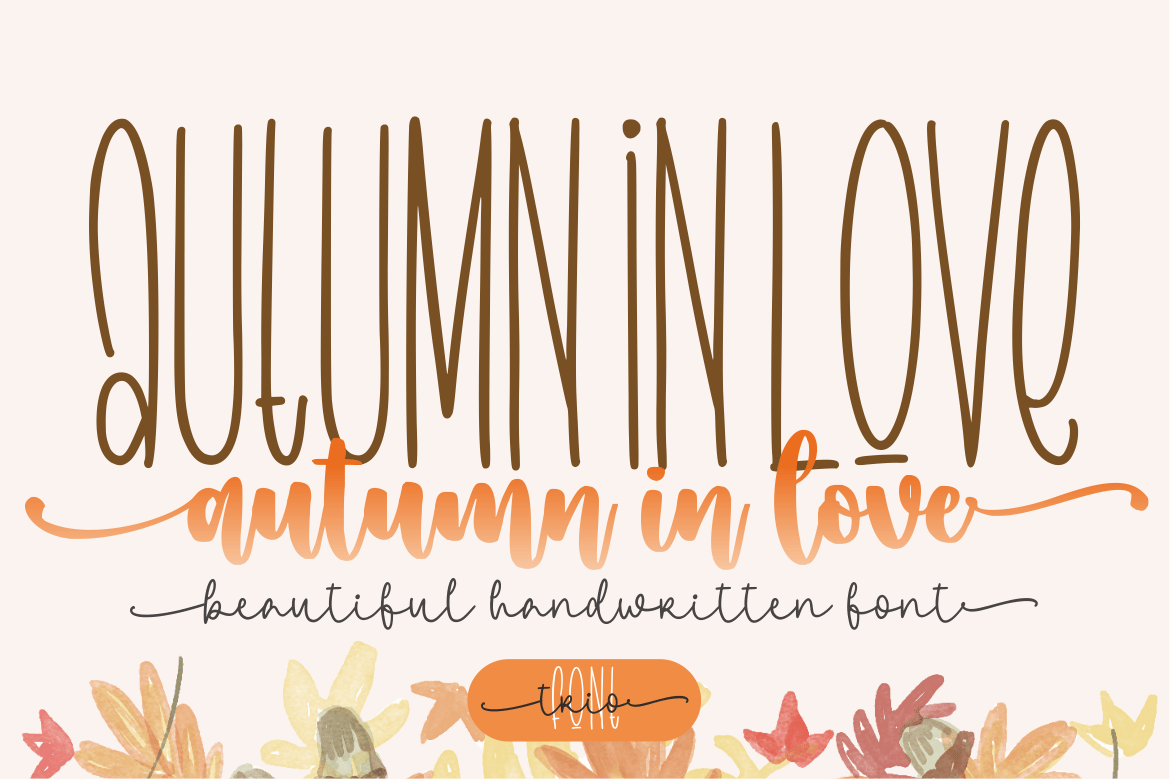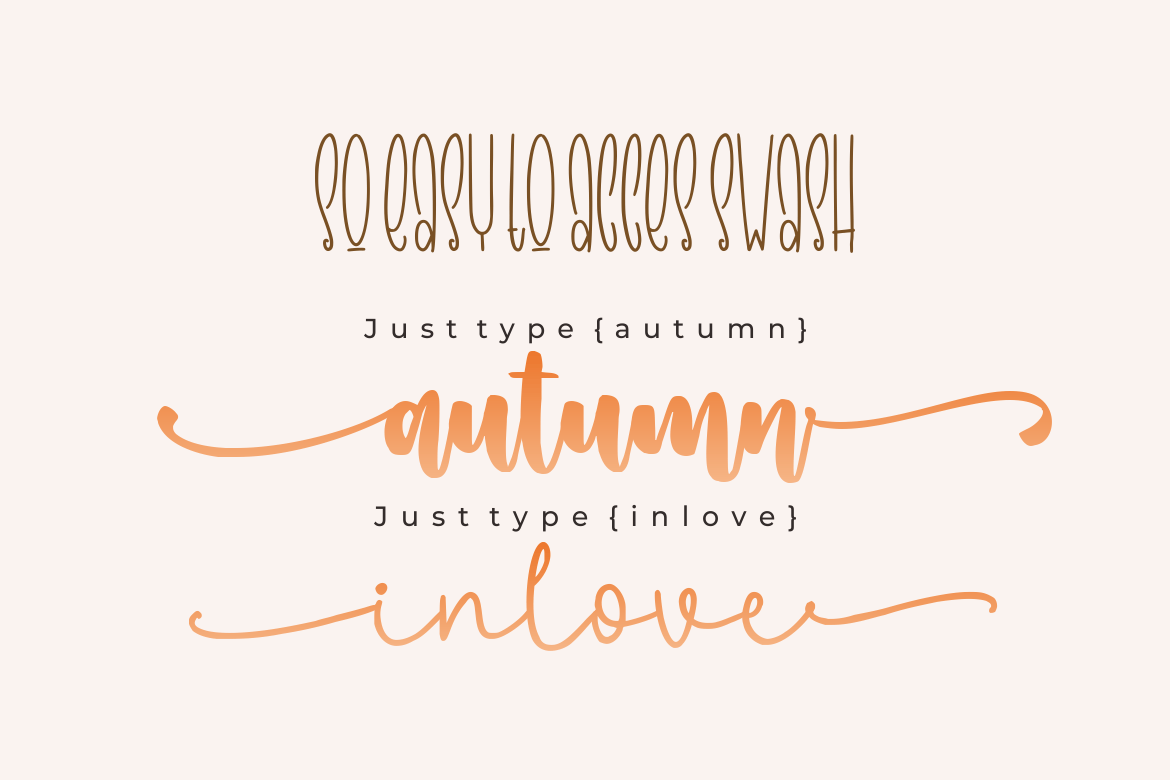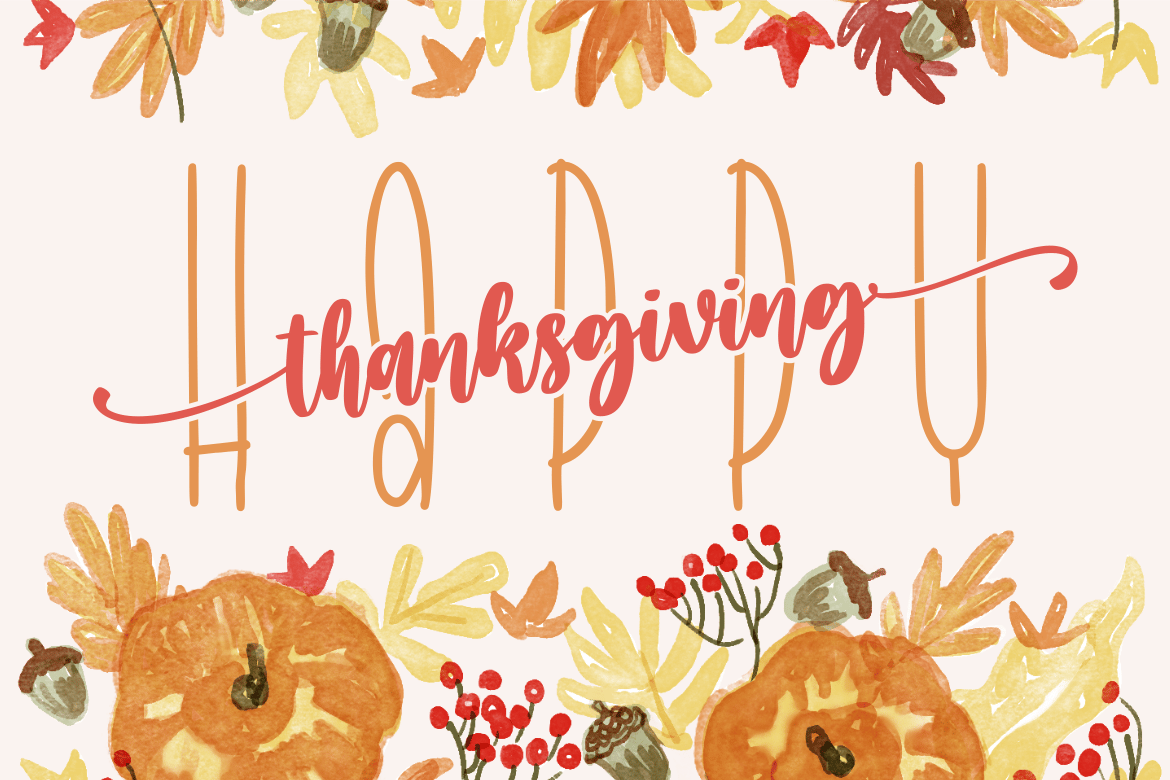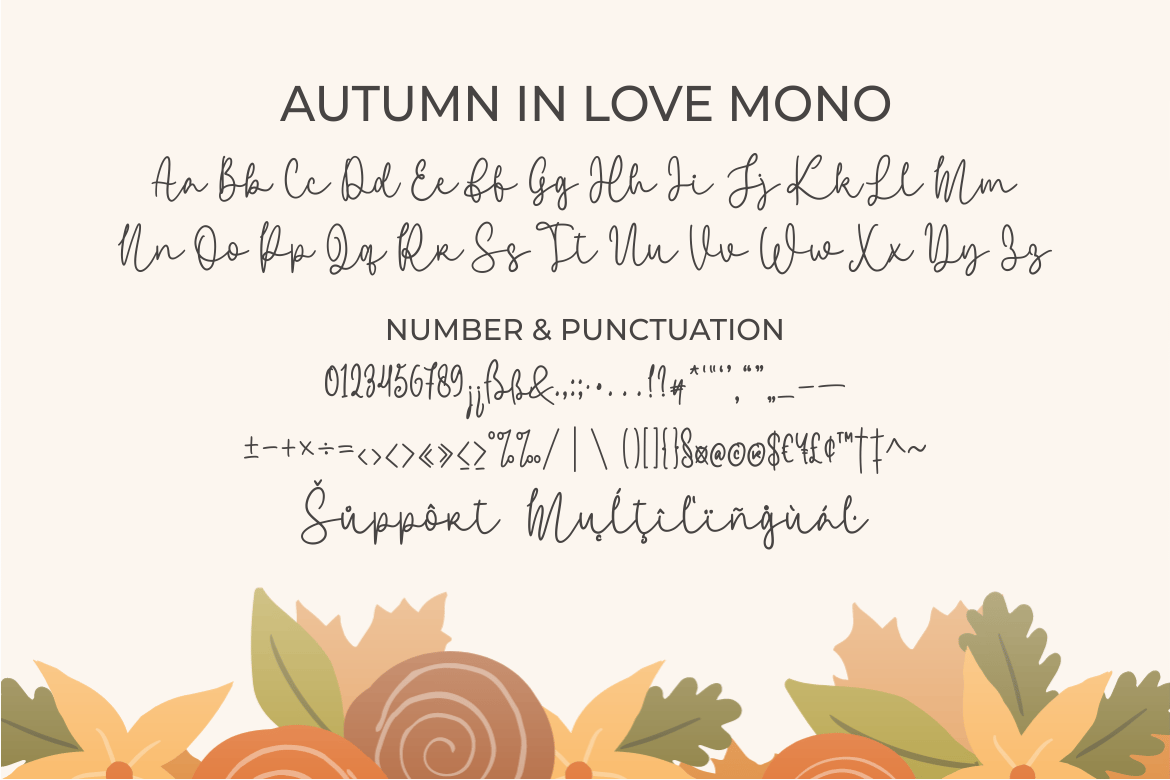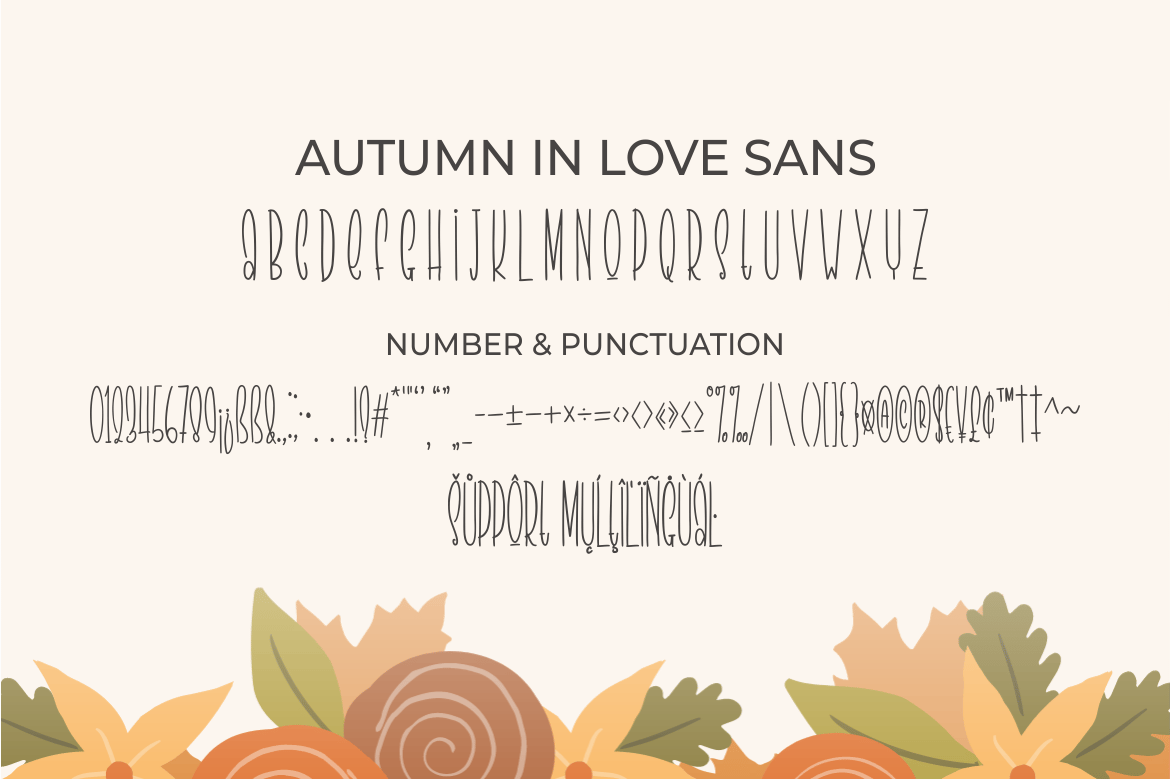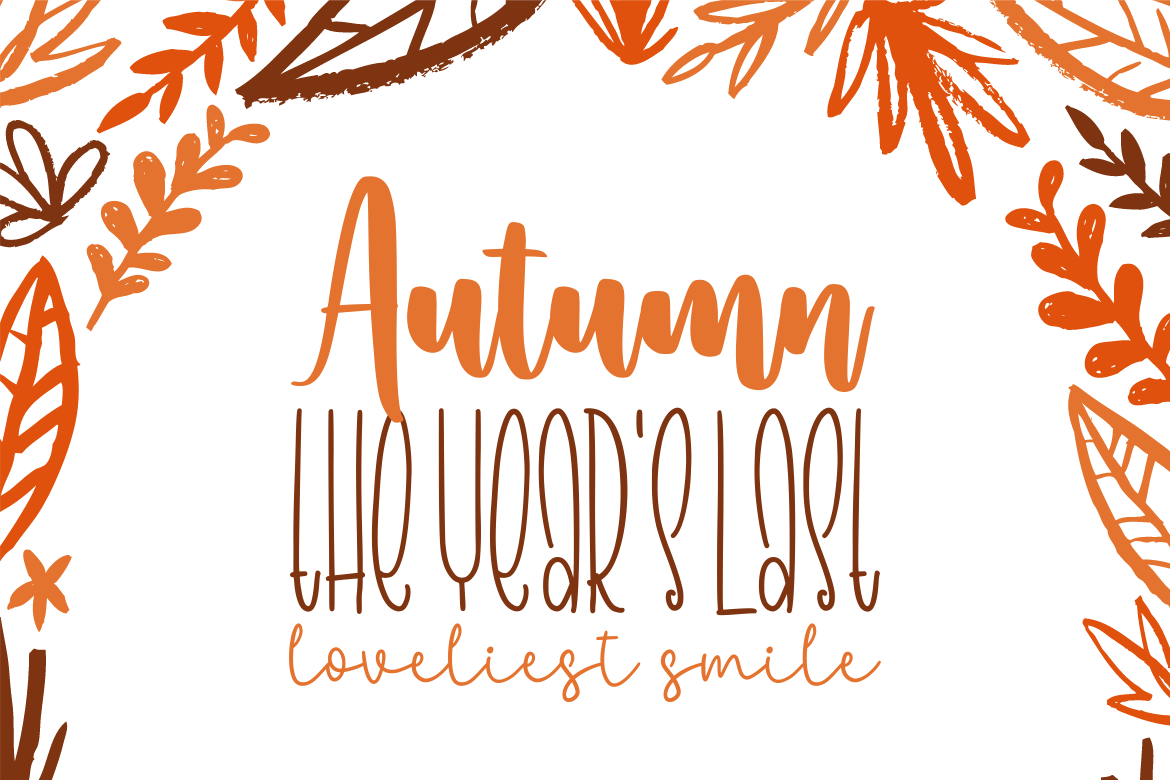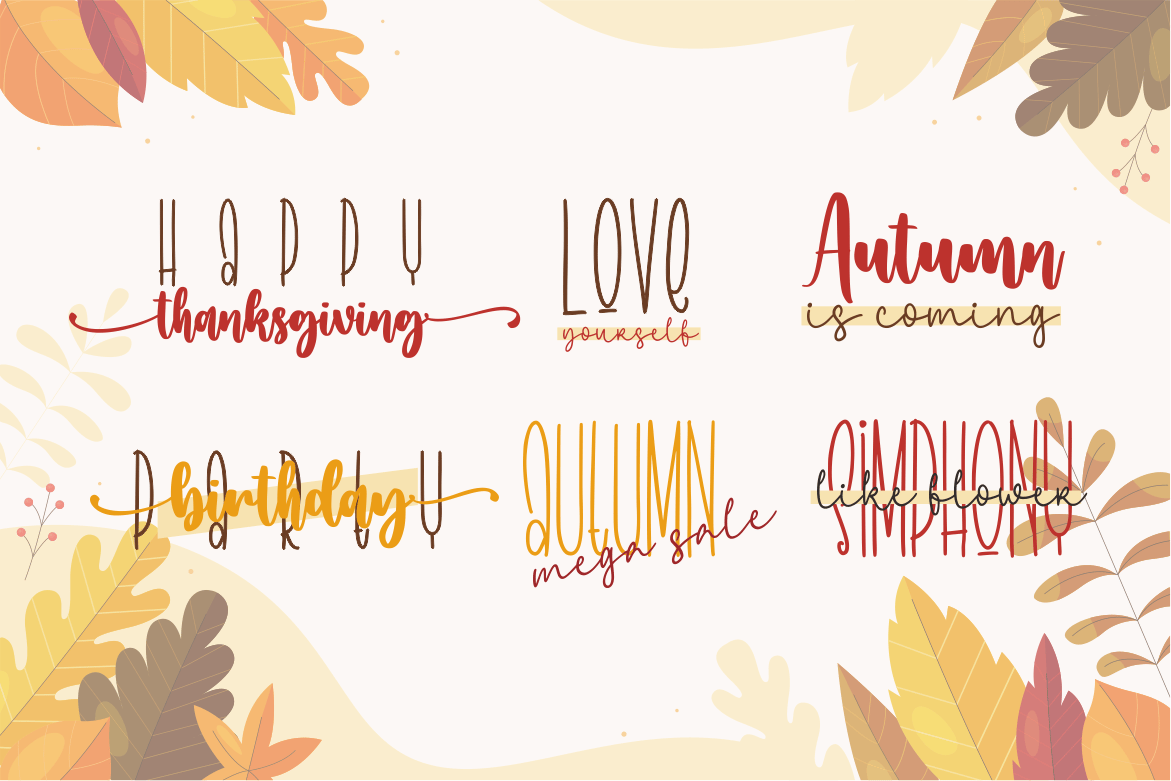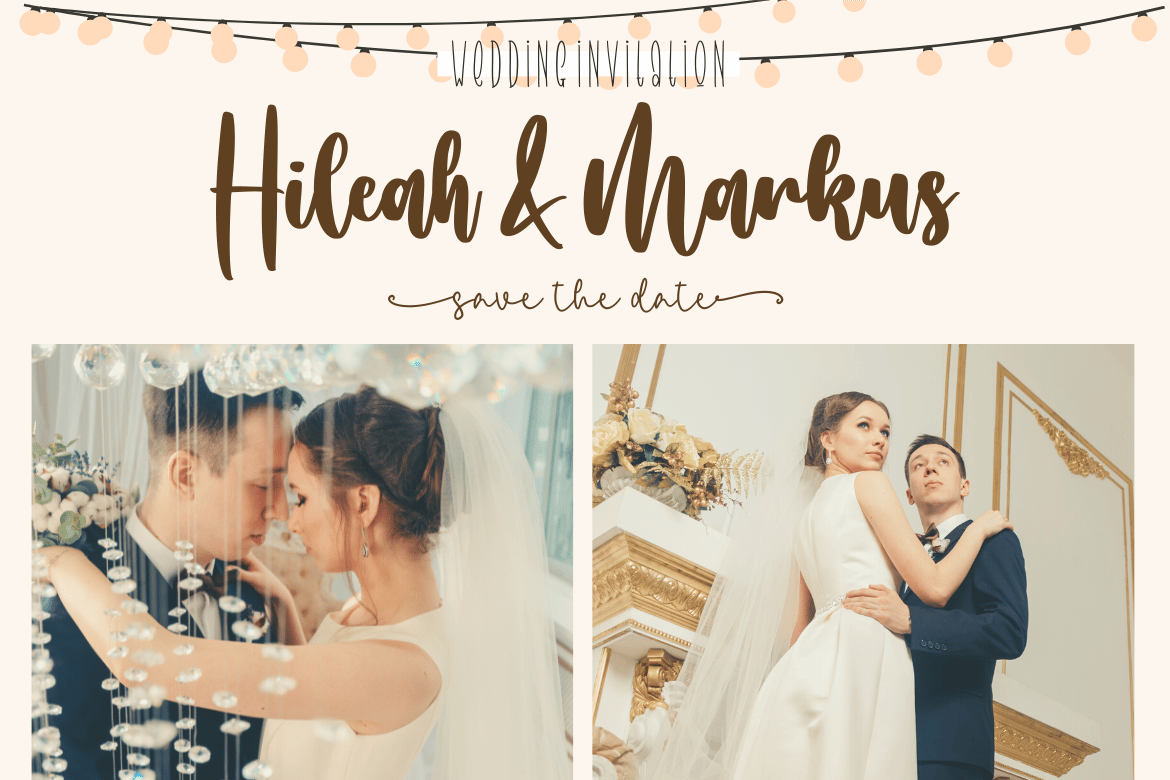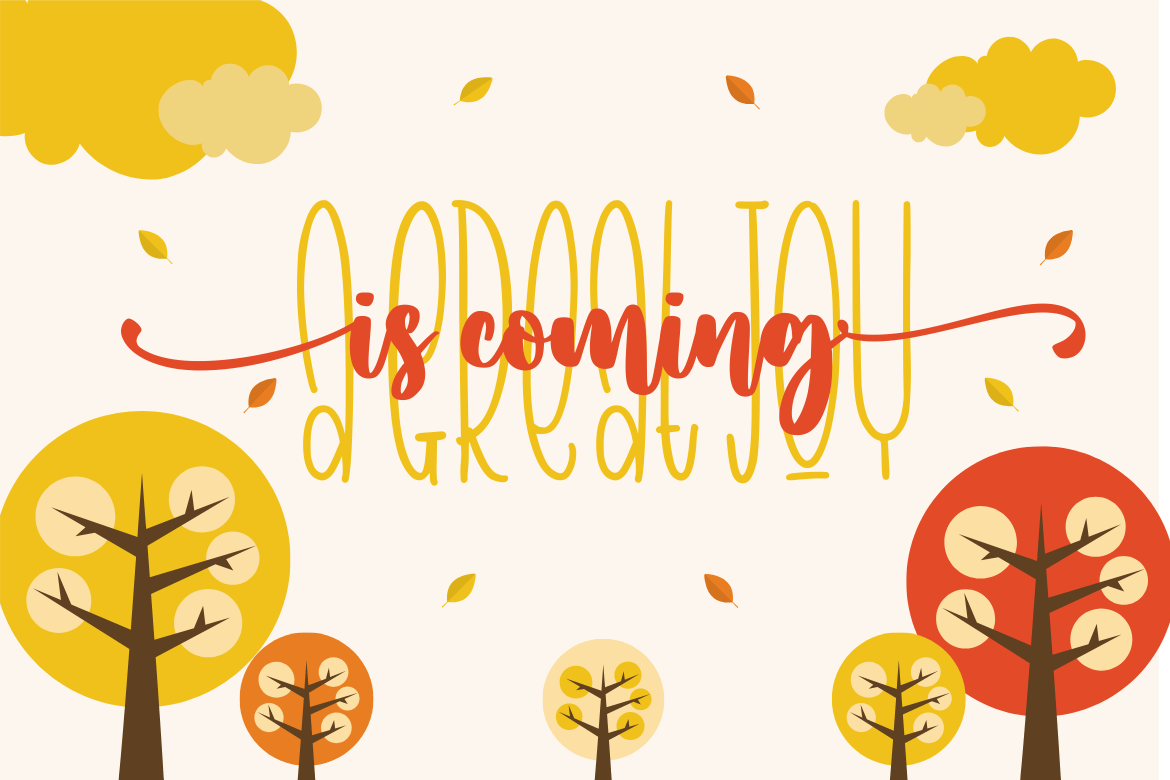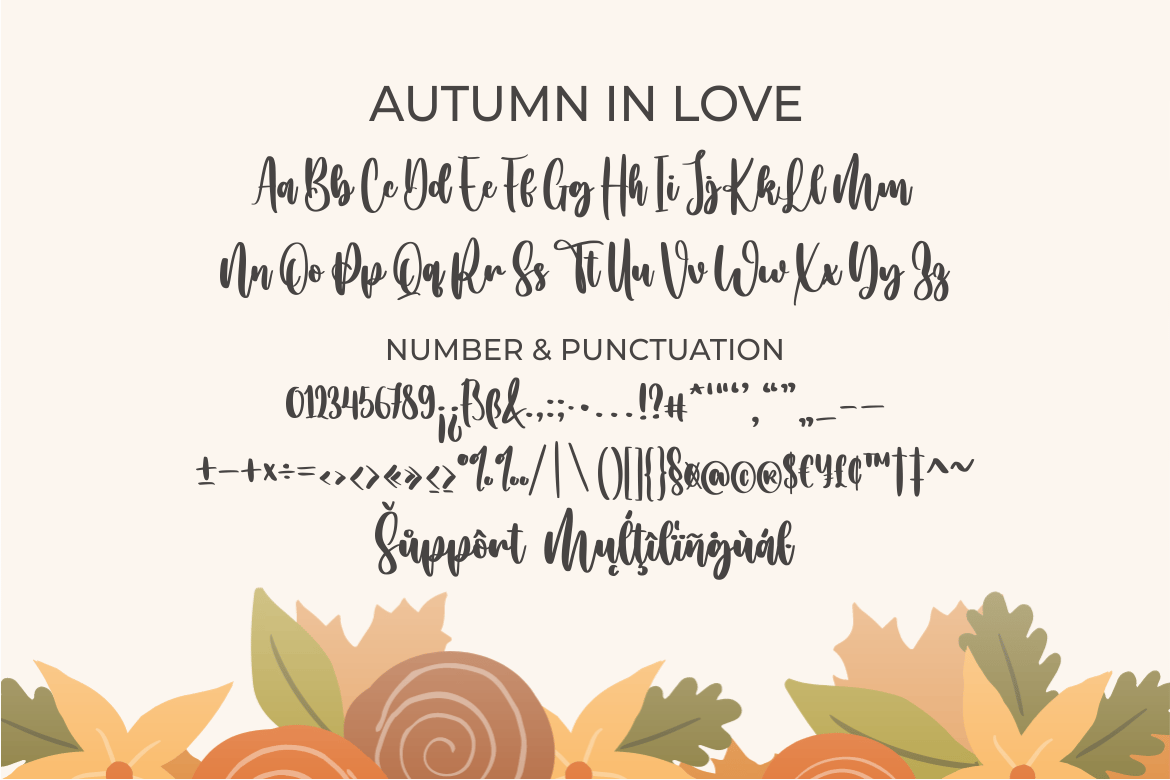
Autumn In Love Font Trio
Introducing, Autumn In Love a beautiful and stylish font trio (script, monoline script, and sans serif) suitable for your design project needs, such as; Wedding themes, Valentine’s themes, fall themes, social media posts, quotes, overlays on images, tagline logos, posters, print needs, website banners, and more.
- A set of uppercase and lowercase glyphs
- Number, symbol, and punctuation
- Some Swashes
So Easy to Use
Access Swashes by keyboard
- key bracketleft ‘ [ ‘ to feature beginning swash 1
- key braceleft ‘ { ‘ to feature beginning swash 2
- key bracketright ‘ ] ‘ to feature ending swash 1
- key braceright ‘ } ‘ to feature ending swash 2
For Example: type [beauty]